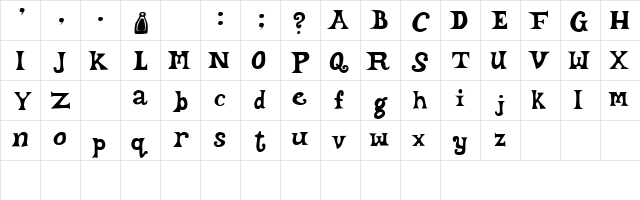
Hourly, Daily Regular
Design Context for Hourly, Daily Typeface
Hourly, Daily is a composed and adaptable typeface that performs quietly and consistently across a wide range of design contexts.